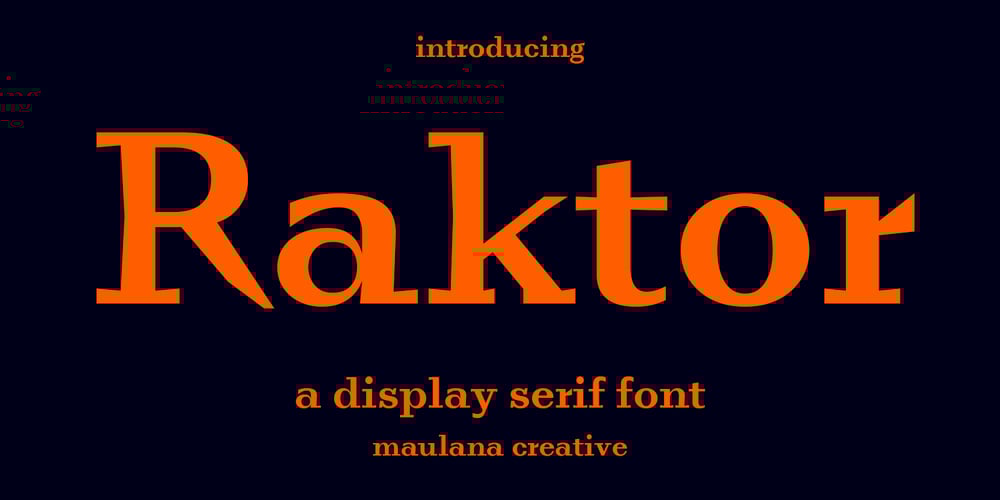
MC Raktor
MC Raktor font
MC Raktor Font Family was designed by Gilang Maulana and published by Maulana Creative. MC Raktor contains 1 styles and family package options. Raktor is a modern Display serif font with medium-low stroke contrast, fun characters with a few ligatures and alternates to let you unlock extra creative work. Raktor supports more than 100+ languages. This font is good for logo design, social media, movie titles, books titles, short and even long text, lettering. Raktor also works great when combined with other script or serif fonts as a secondary text font. Create stunning work with Raktor!